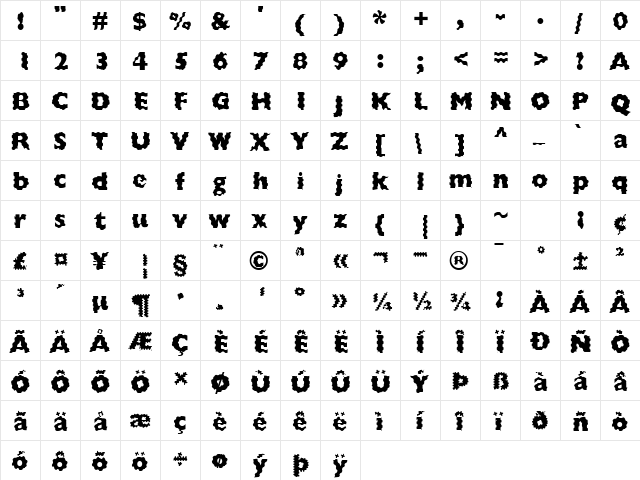
FZ BASIC 57 WAVEY Normal
Design Context for FZ BASIC 57 WAVEY Typeface
FZ BASIC 57 WAVEY is a composed and adaptable typeface that performs quietly and consistently across a wide range of design contexts.
Pro Tip: Use FZ BASIC 57 WAVEY in both headline and body roles to test its range before committing to a single application.